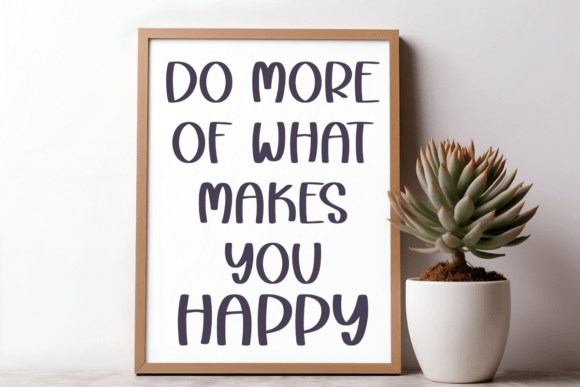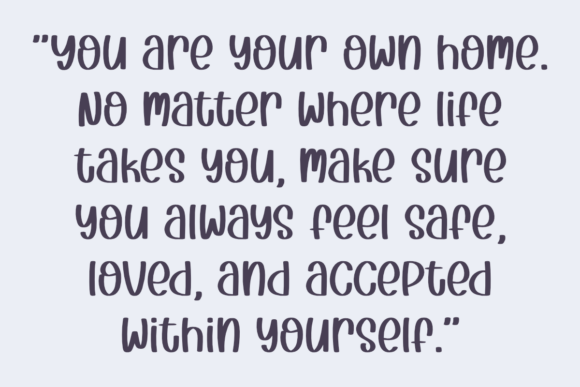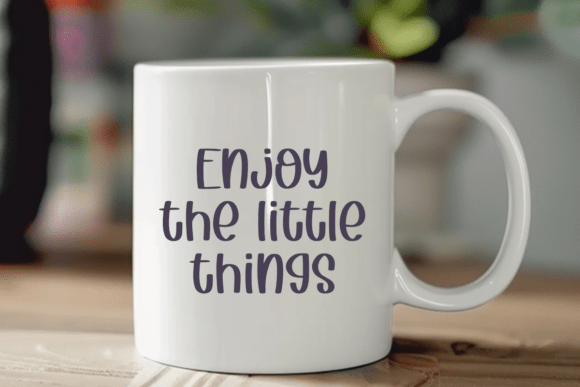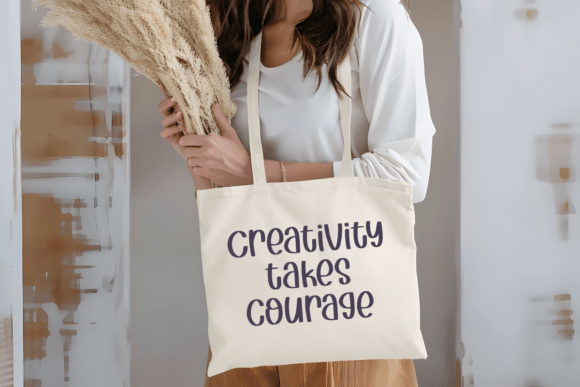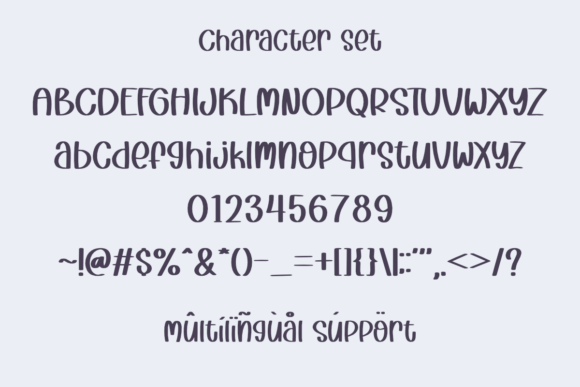
Introduction to Scary Alligator Font
Scary Alligator is a fun and whimsical font that’s perfect for crafts, planners, KDP, stickers, greeting cards, and more.
With its cute and friendly style, it works great for Cricut, sublimation, and creative DIY projects Ideal for crafters, designers, and makers.
Key Features of Scary Alligator Font